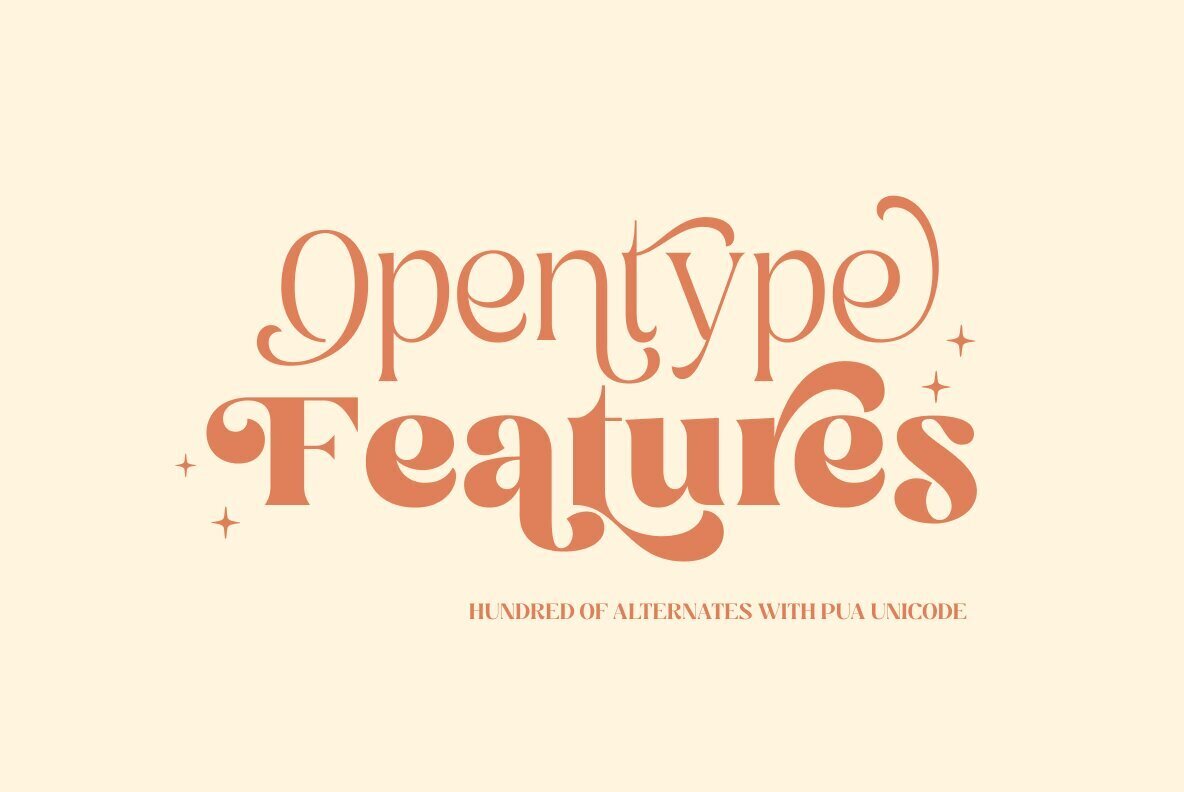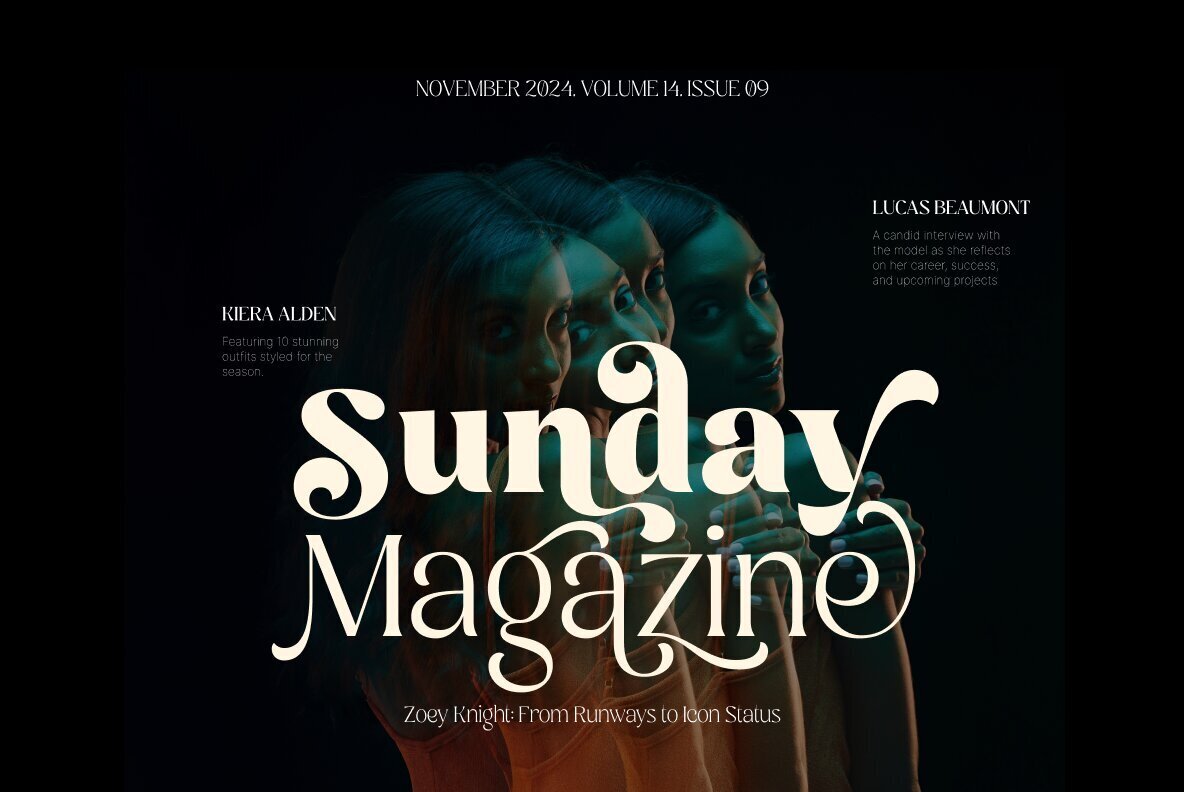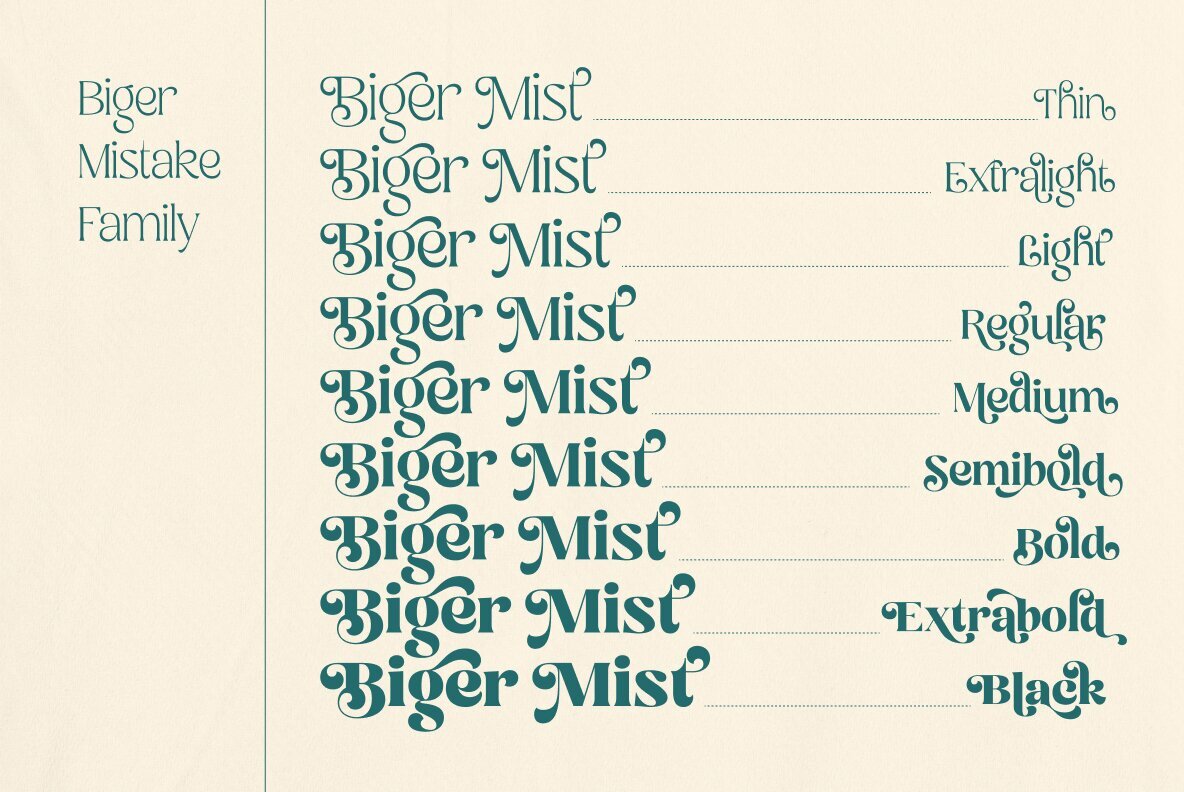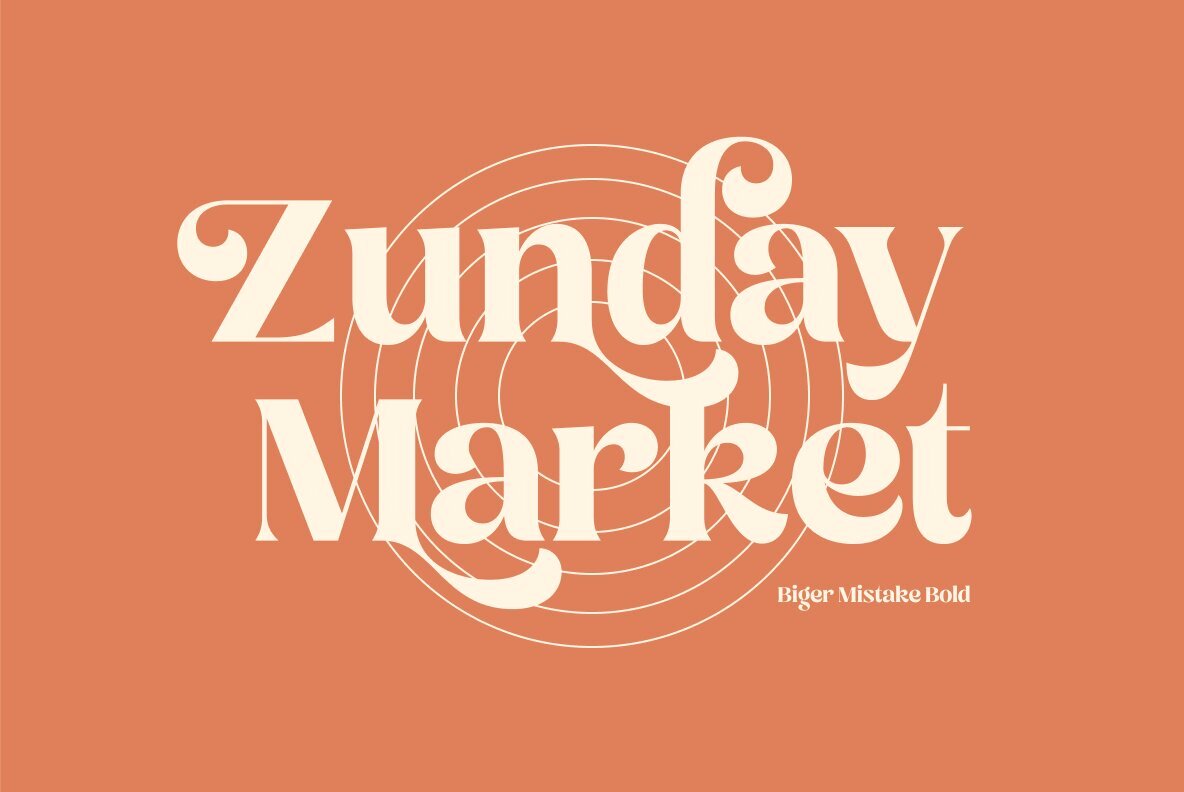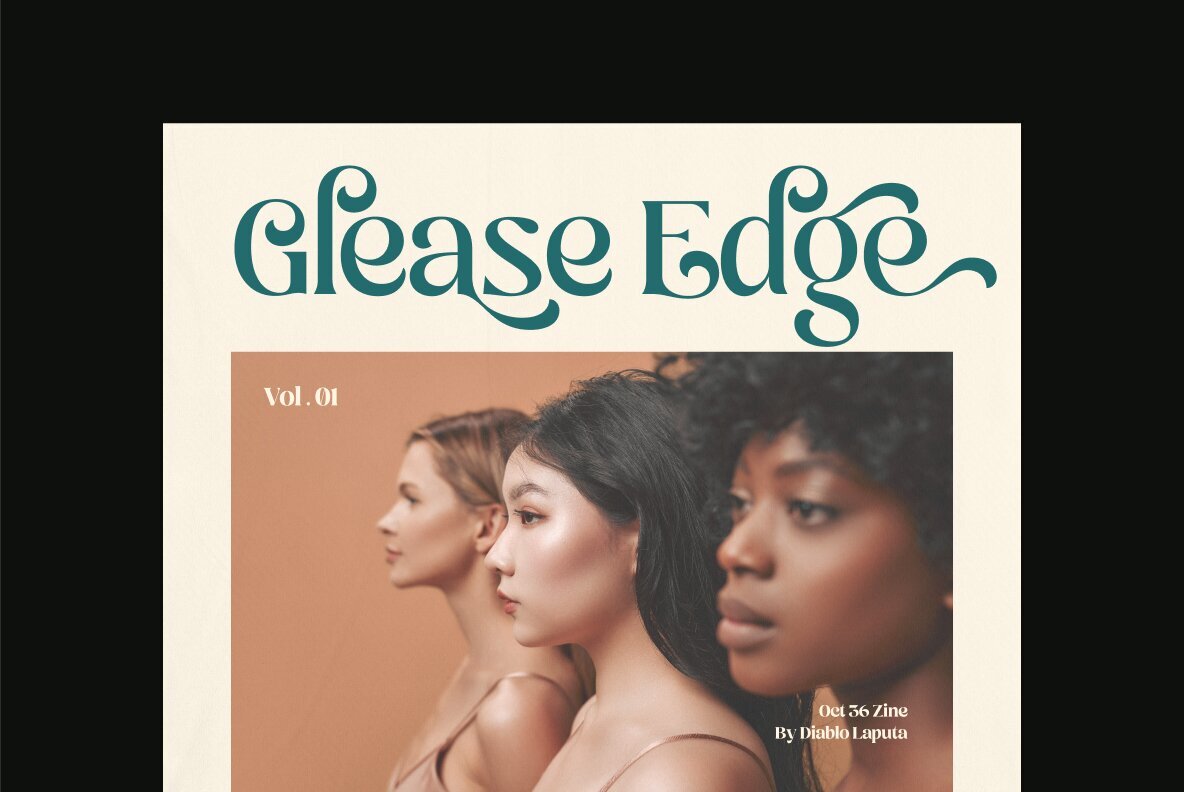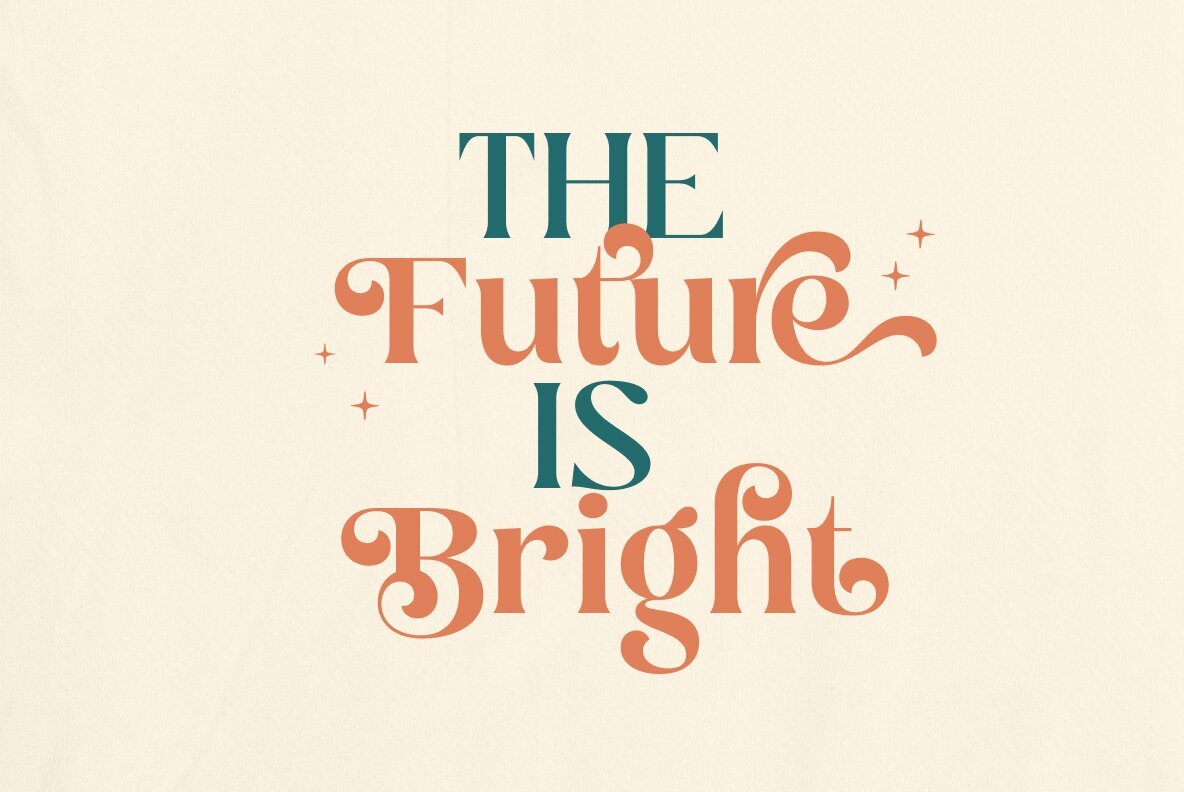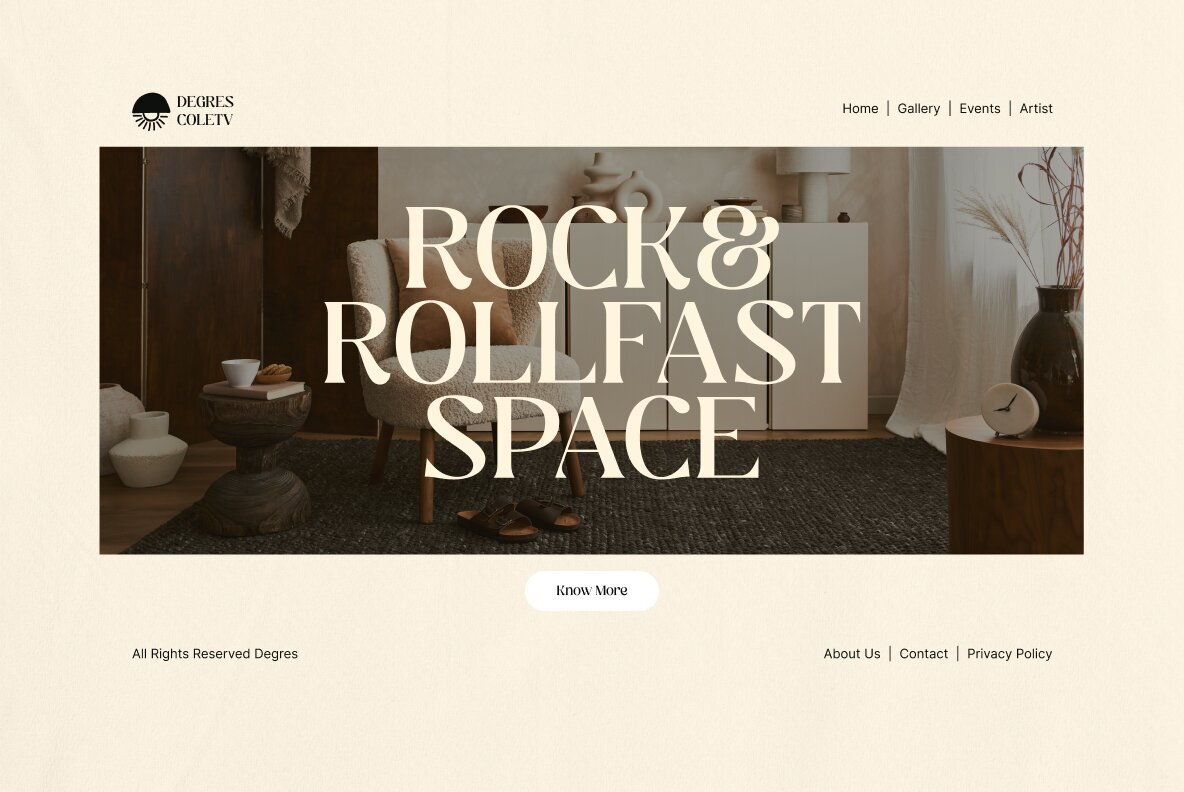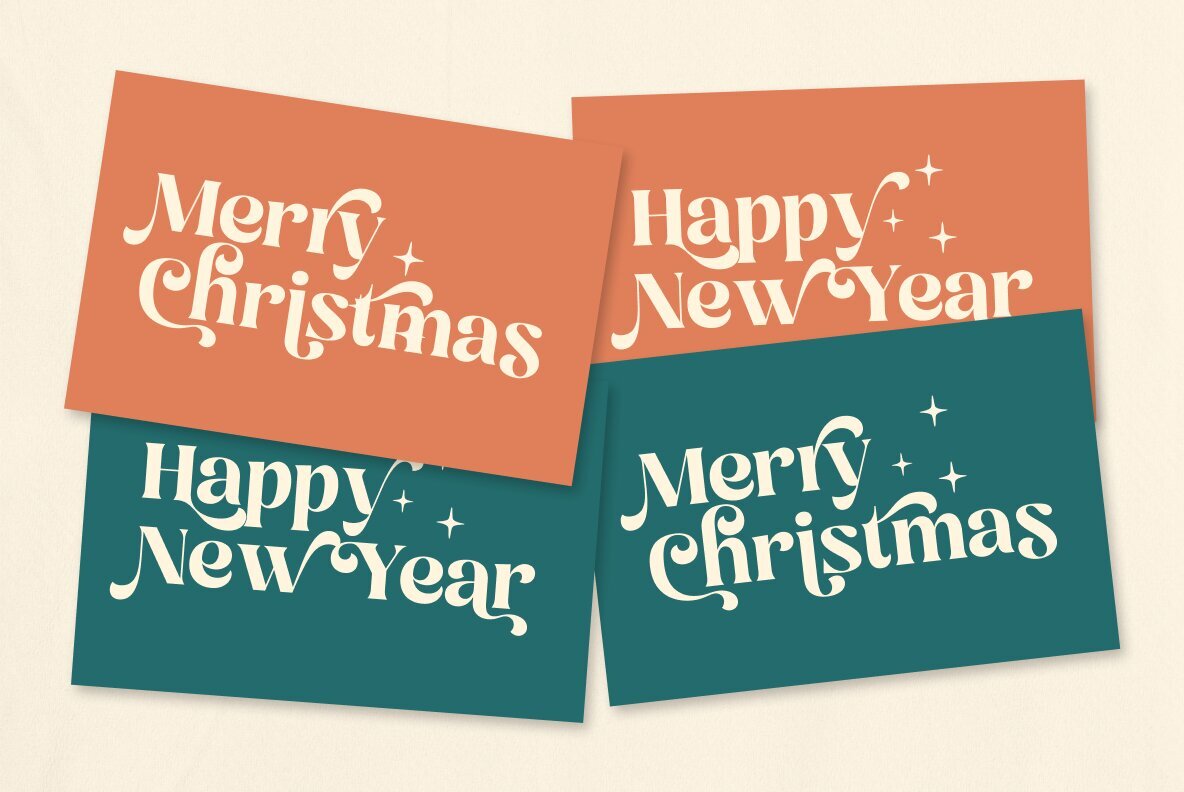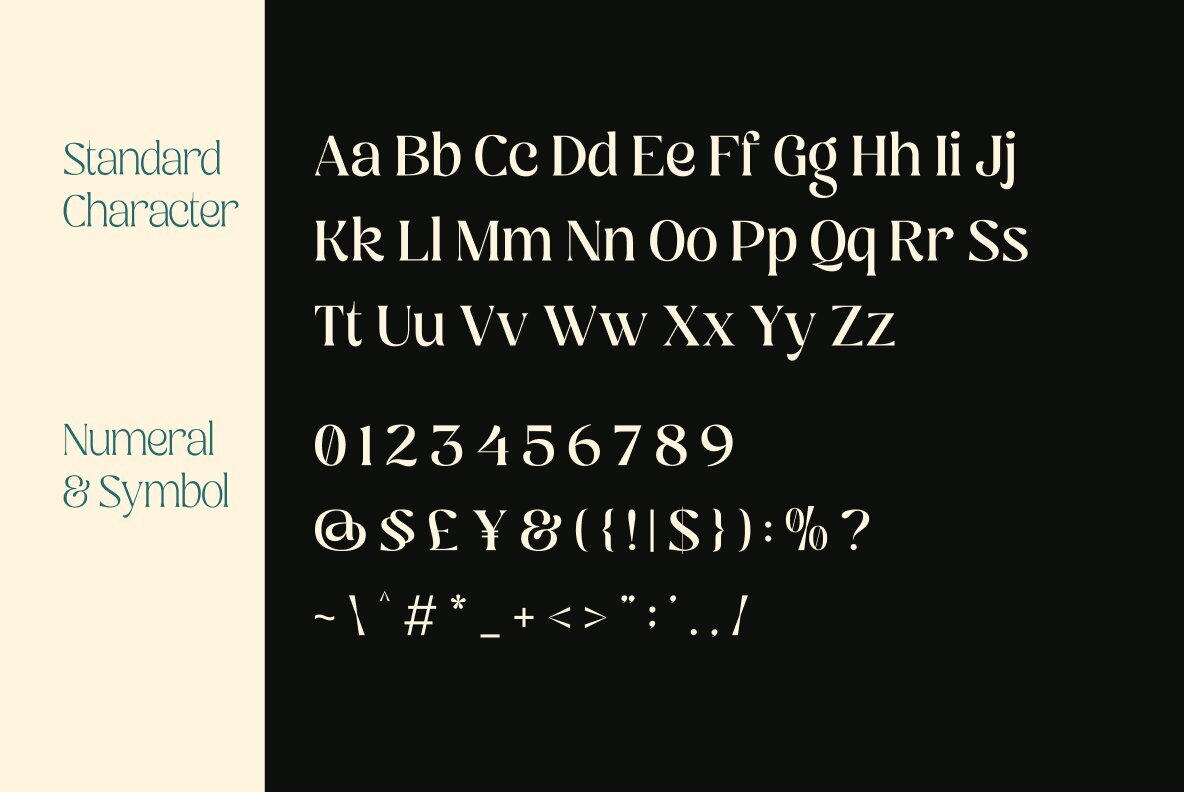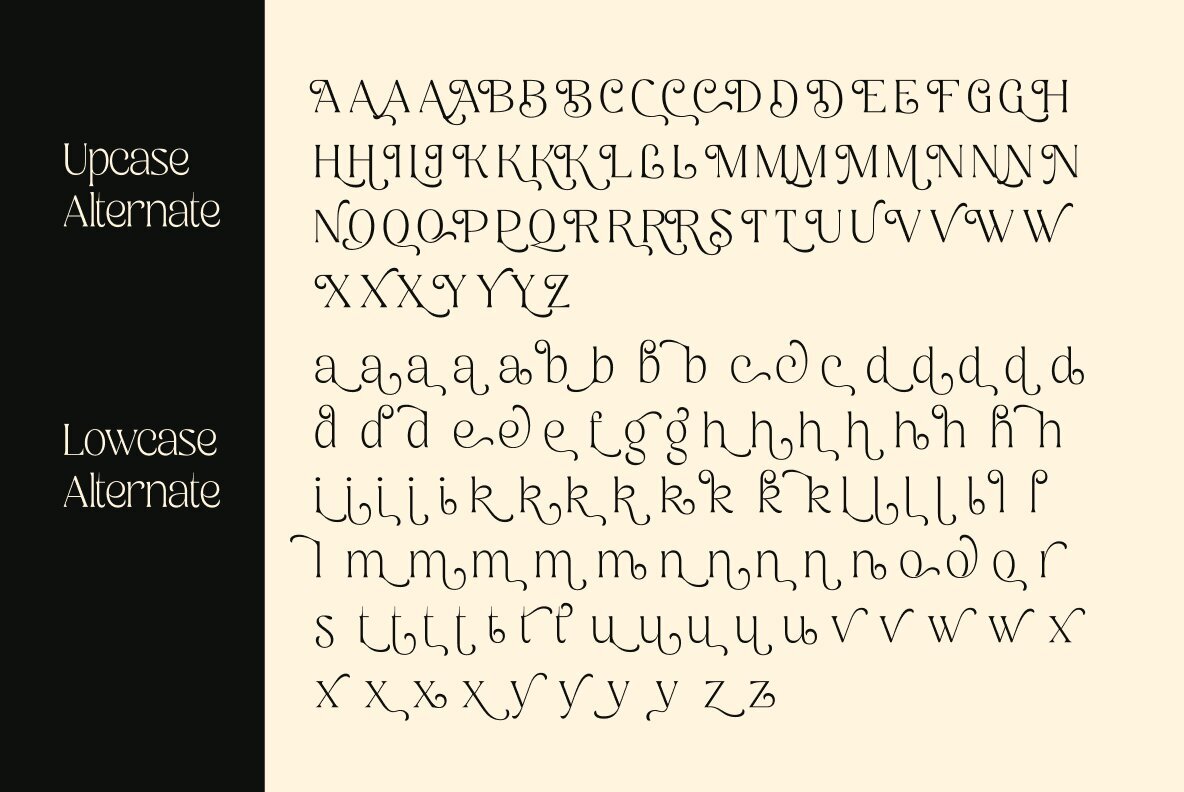
Biger Mistake Font
Biger Mistake is a playful serif display font that draws inspiration from the retro fashion and classic magazine designs of the '60s to the '90s. Infused with a blend of bold character and elegance, this typeface provides a distinctive style that ensures your designs capture attention.
Boasting 9 diverse weights, from delicate thin to robust black, Biger Mistake caters to a wide range of projects, perfect for headlines, logos, and editorial designs. The font's extensive alternates offer effortless combinations, allowing the creation of stunning curves and detailed shapes. Capture the essence of vintage aesthetics with a modern appeal—Biger Mistake is ideal for designs seeking both personality and sophistication.